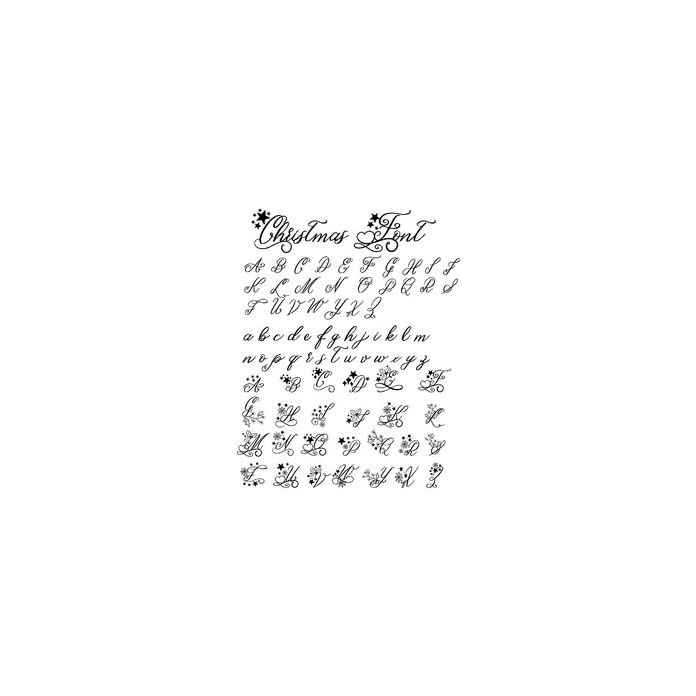
A beautiful and elegant handwritten script font with extra celebrating Christmas alternate characters. Please note that to access the alternate Capital letters your software must support the Glyphs panel.